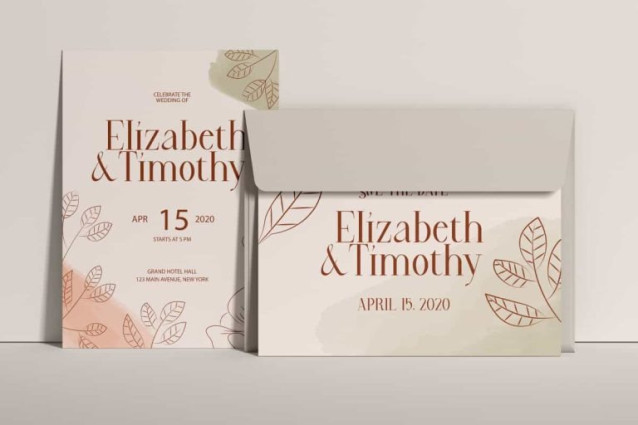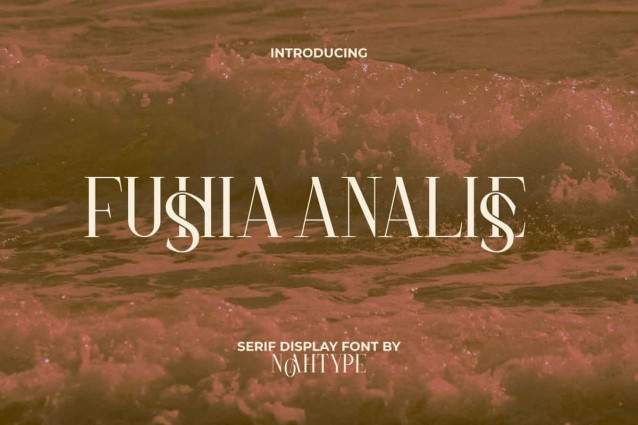
Fushia Analise Font
Fushia Analise Font is a serif style display font that has an fancy touch by NoahType. This font character is clean so it can create a luxurious impression and can be paired with other type of fonts. It will be good for any designs, such as invitation, brand image, custom design, label, marketing material, menu, poster, product packaging, quotes, signage, stationery, web and many more!
Fushia Analise Font includes a complete set of Uppercase and Lowercase Basic Characters, Numerals, Punctuation and Symbol. The addition of Ligature character of this font will give beautiful look and also a perfect choice for many industries, such as beauty product, event or wedding organizer, accessories, advertising, fashion, movie, photography, printing, publishing, spa and salon, travel, etc.